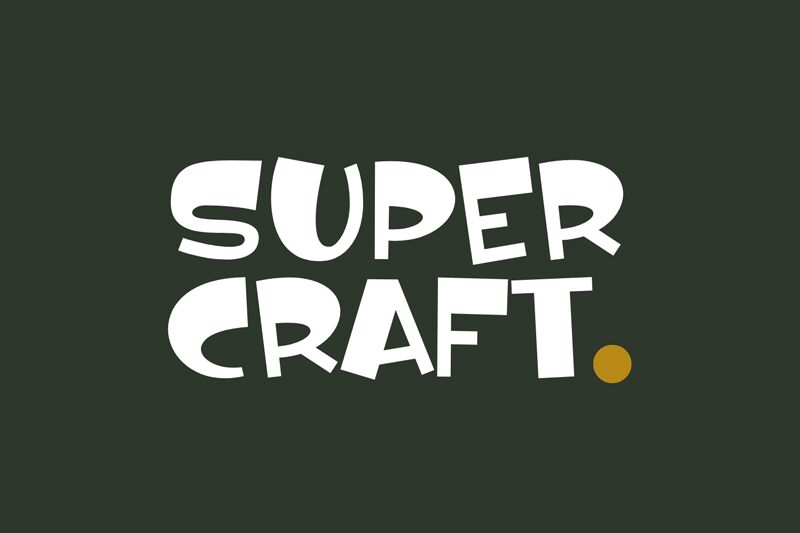
Super Crafty
Super Crafty is a bold, expanded display font designed by fsuarez913. With its playful, cartoon-inspired aesthetics, this font exudes a delightful and whimsical charm. The distinctive, heavy strokes and rounded edges create a sense of playfulness and approachability, making it an eye-catching choice for a variety of design applications.
The font's unique character and expanded width lend themselves well to attention-grabbing headlines, impactful logos, and vibrant branding materials. Its bold presence and fun, spirited personality make Super Crafty an excellent selection for children's illustrations, comic books, or any project seeking to infuse a touch of lighthearted creativity.